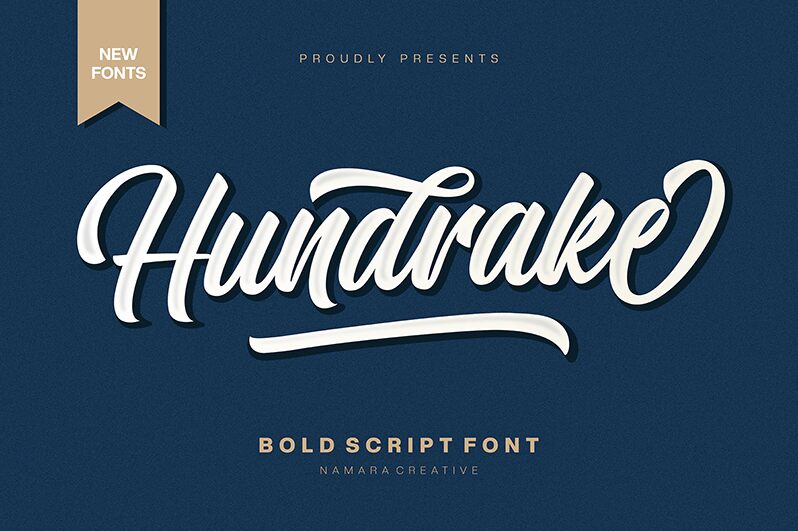
Hundrake
Hundrake, a bold and modern script font designed by Namara Creative, exudes a captivating sense of style and sophistication. Its strong, calligraphic strokes and seamless transitions between thick and thin lines create a visually striking aesthetic, evoking a sense of elegance and confidence. The font's unique character shapes and carefully crafted ligatures add depth and personality, making it a standout choice for a variety of design projects.
Hundrake's versatility allows it to shine in a multitude of applications, from eye-catching logotypes and impactful product labels to chic wedding invitations and refined editorial designs. Its bold yet refined nature makes it an ideal selection for branding, packaging, and marketing initiatives that seek to convey a sense of refined modernity and urban flair.